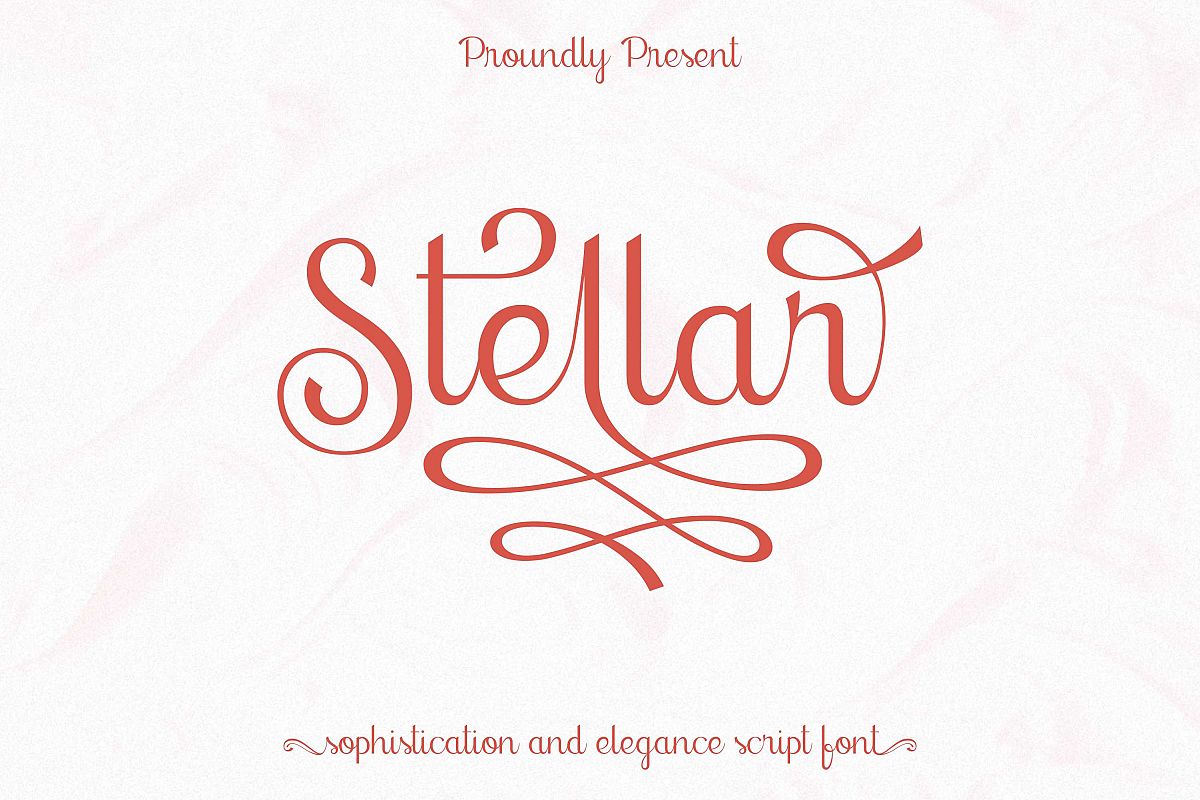
stellar - sophisticated script font
Stellar Reguler
this produck is suiteable for many purpose. it can be a logo with a lot of alternate options that can support you logo designs.
and it can be simple text that is suit too. and it can be little text decorative for quote or other. thank and please enjoy :)